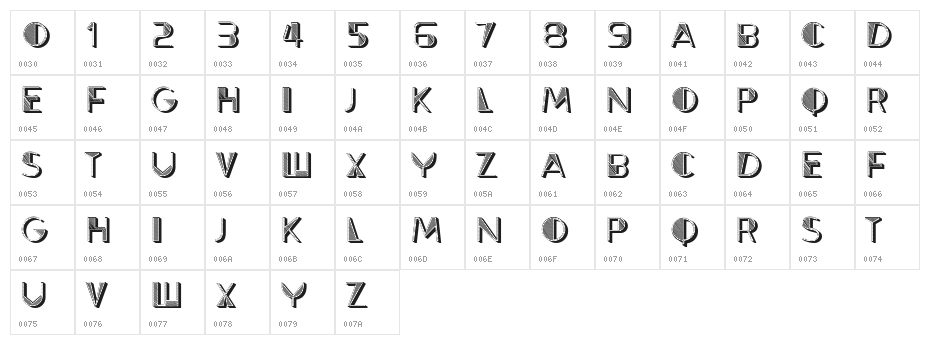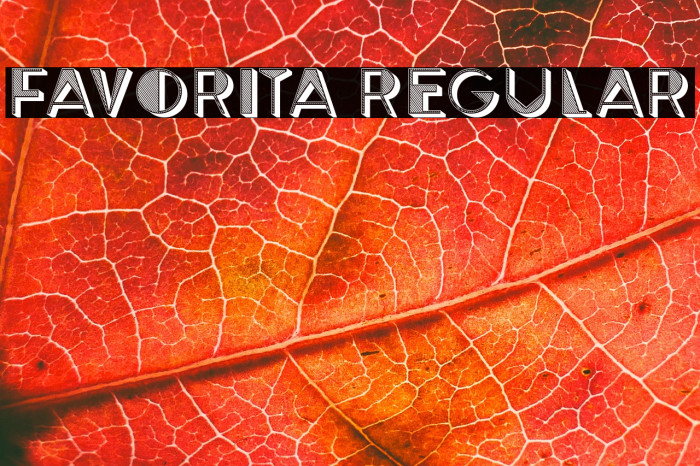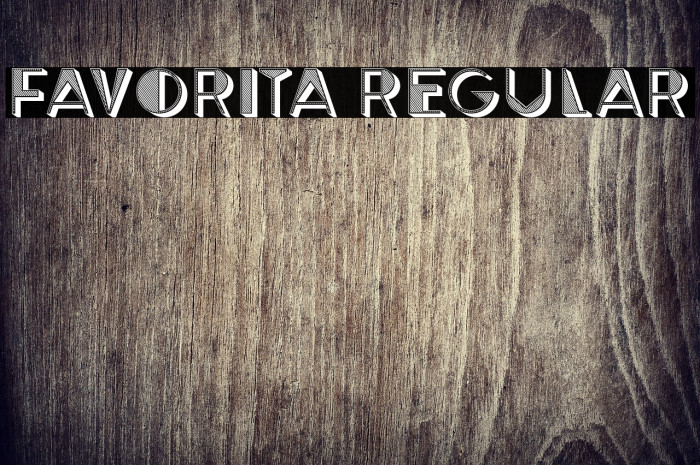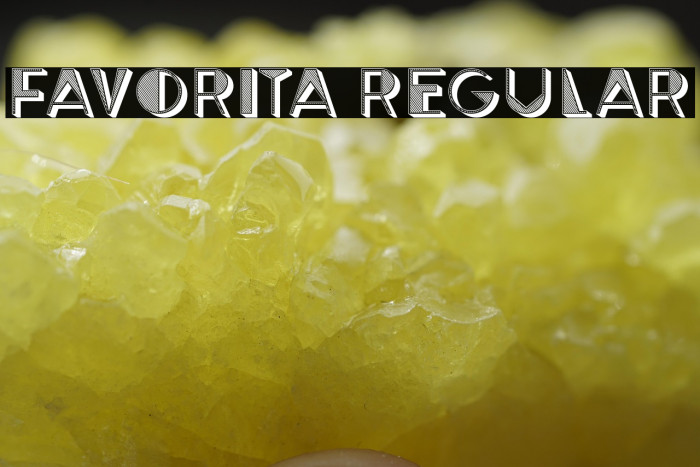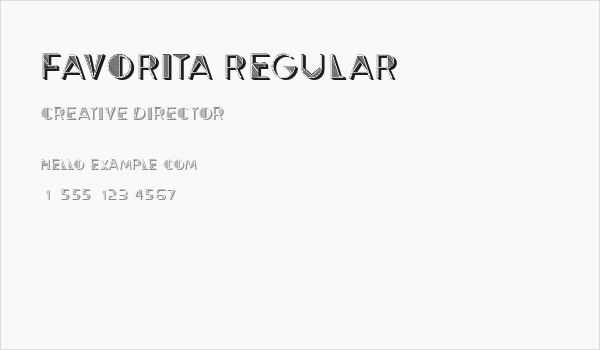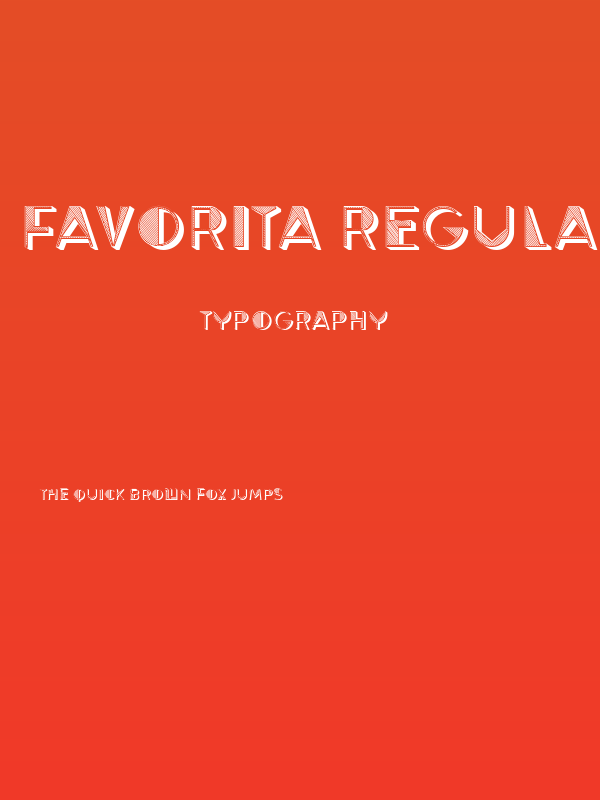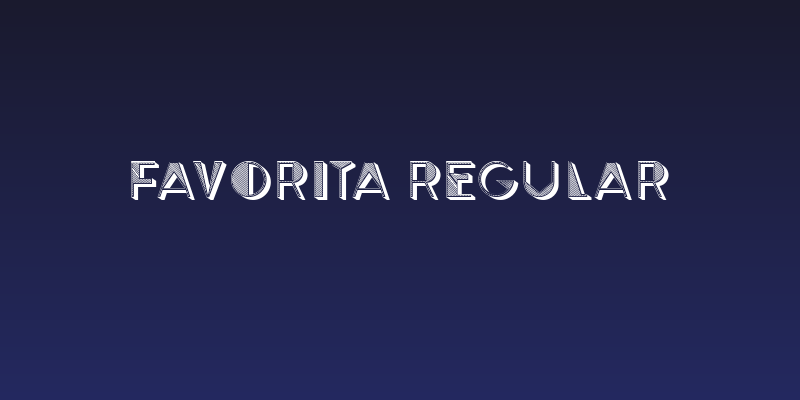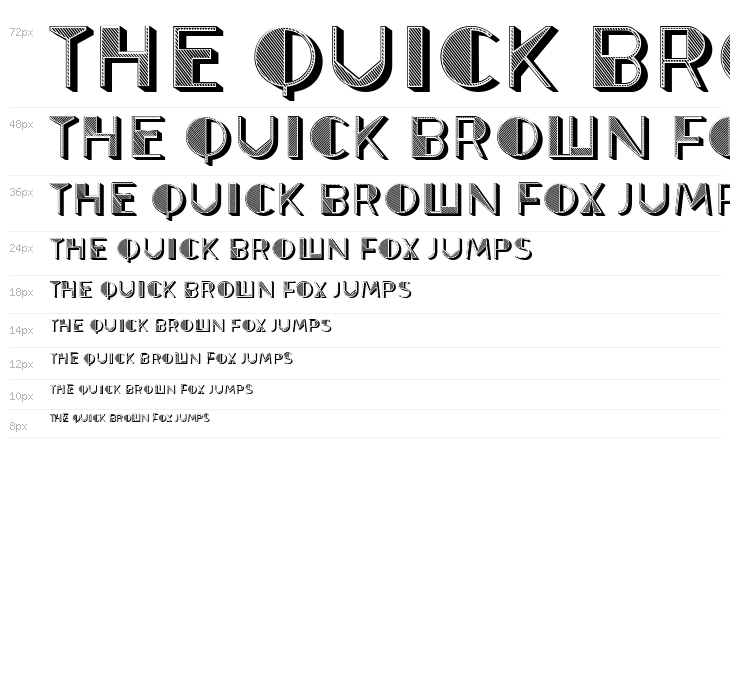
Favorita Regular Font
Favorita Regular Description
This font features a bold, geometric design with a distinct 3D effect created by diagonal lines within each character. The uppercase letters are crafted with sharp, angular edges, giving them a modern and industrial feel. The numerals and special characters maintain this style, ensuring consistency across all glyphs. The font's unique texture and depth make it stand out, ideal for eye-catching designs. Its structured form and bold presence suggest a sense of strength and stability, making it suitable for impactful headlines or branding projects.
| Proposed Projects | Ideal for branding, posters, headlines, and any design requiring a strong visual impact. |